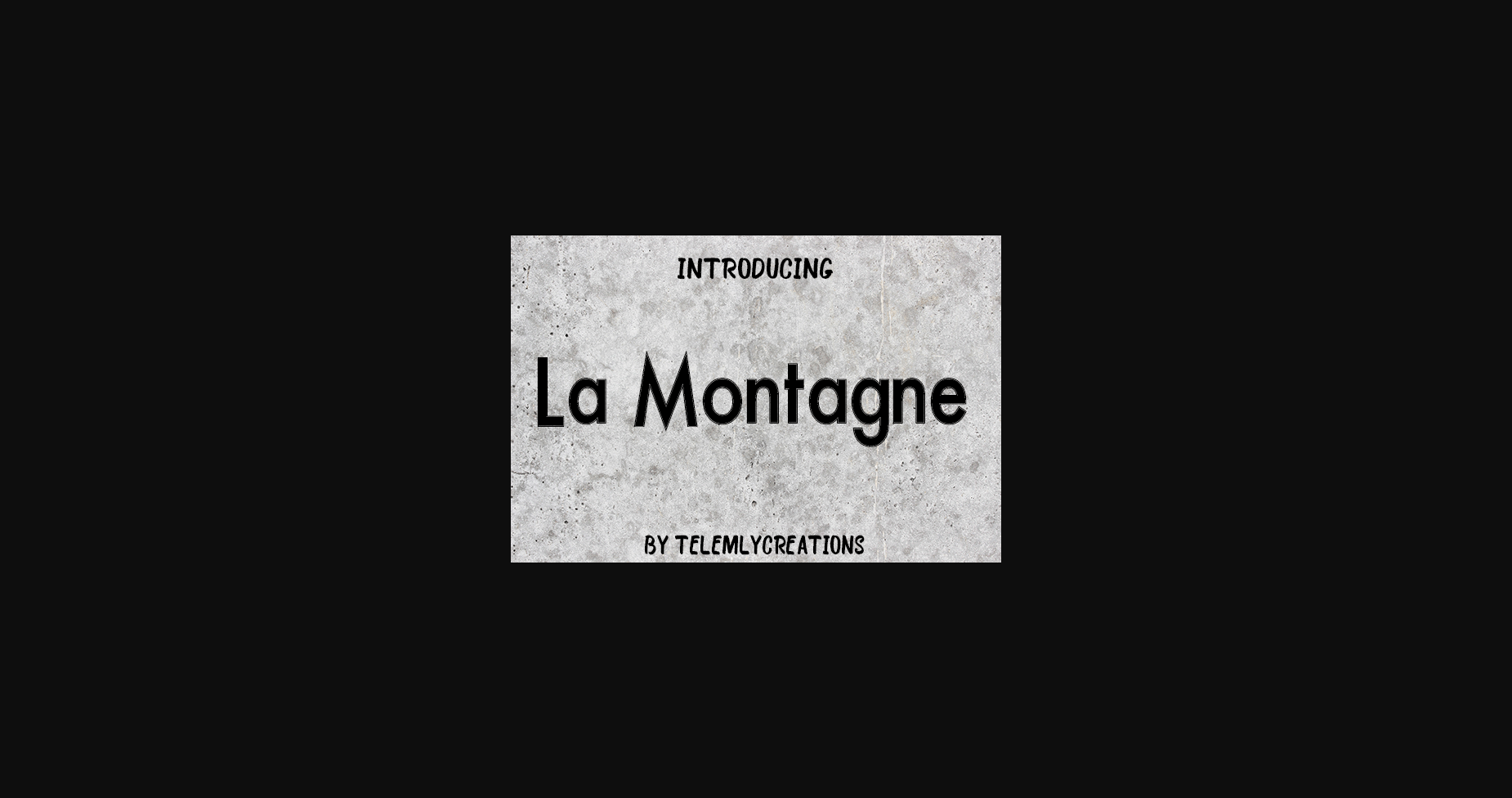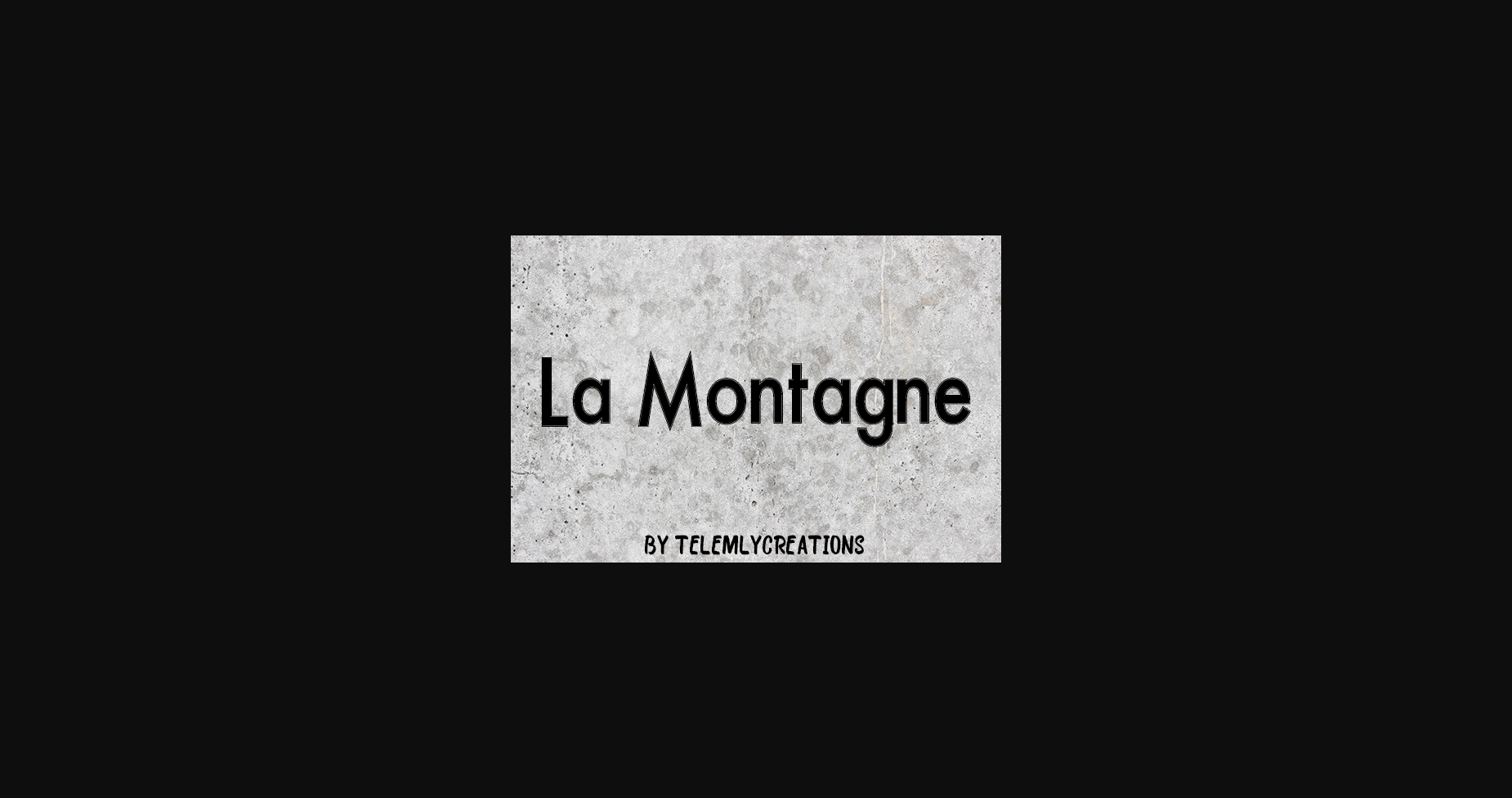
HomeSans Serif FontsLa Montagne Font Sans Serif Fonts La Montagne Font FacebookXPinterestWhatsApp 1 of 4 ... La Montagne Font Poster 2... La Montagne Font Poster 3... La Montagne Font Poster 4... About La Montagne Font La Montagne is a cute sans serif font. It is the best choice for creating eye-catching logos, branding, and quotes. Every letter has a unique and beautiful touch, which will make your design come alive! DOWNLOAD NOW People also explored Yellawolfs Script Font Black Brown Landscape Frame Mockup with Magenta Tulips in Mint Green... Kirsty Premside Font Bygone Fraiselite Font Simphoni Font Gelaktus Font Ampere Font 283 0 TagsLa Montagne Font Previous articleSous Sol FontNext articleCafgone Font LEAVE A REPLY Cancel reply Comment: Please enter your comment! Name:* Please enter your name here Email:* You have entered an incorrect email address! Please enter your email address here Website: Save my name, email, and website in this browser for the next time I comment. Personal Use Free Blessed Font Personal Use Free Read more about this font Mandara Personal Use Free Read more about this font The Sweet Neo Personal Use Free Read more about this font Dandelions Bloom Personal Use Free Read more about this font BLOG 5 Fonts That Will Dominate Design Trends in 2026 5 Fonts for 2026 That Will Dominate Design Trends Typography plays a critical role in visual communication, and as we look ahead to 2026, it’s... The 10 Best Handwriting Fonts to Add Personality to Your Designs Fonts That Capture the Spirit of New York City Best Fonts for YouTube Videos: Make Your Thumbnails Stand Out